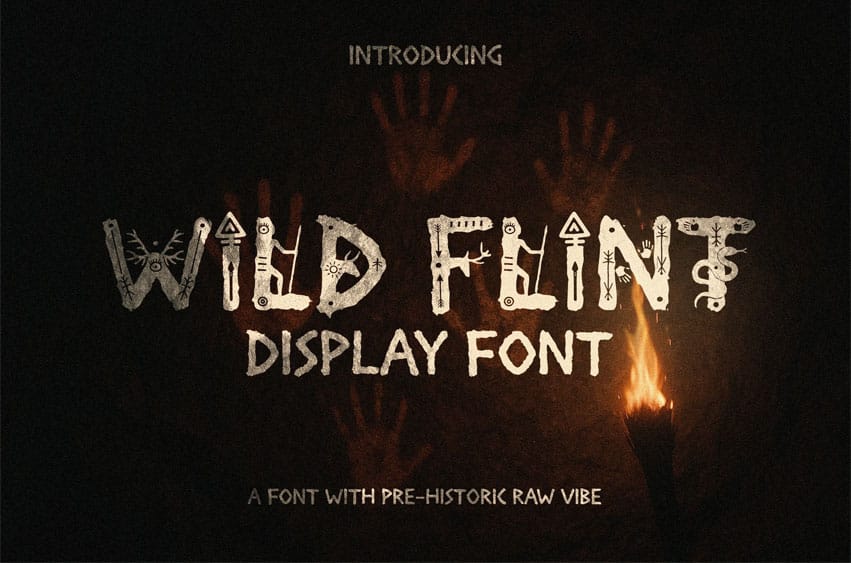
Wild Flint Font is a rugged, handcrafted display font inspired by prehistoric carvings and primitive markings. Each letter is etched with tribal symbols and primal textures — perfect for bold headlines, immersive posters, themed branding, or anything that demands the wild roar of the Stone Age.
Where it thrives:
- Adventure book covers
- Tribal festival posters
- Primitive game titles
- Bold grunge logo marks
- Ancient-inspired apparel graphics